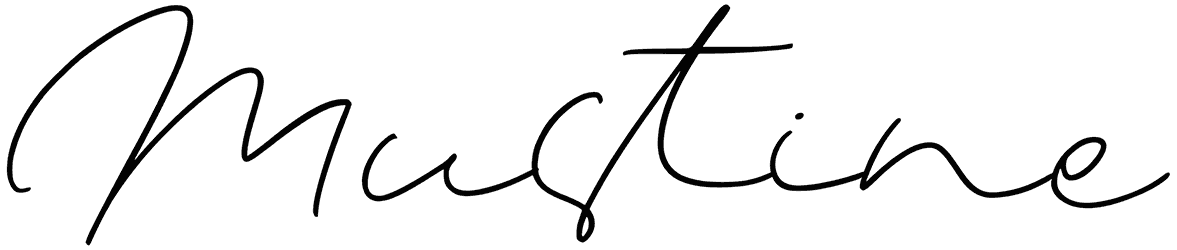
Mustine Font
Let’s check out Mustine, a monoline handwritten font that comes with a striking signature style. It emits a natural, fashionable touch and gives your design a youthful appearance. It looks made with simple ingredients, but when you put the letters together, it might be a bit illegible. This feminine font will be ideal for album covers, photo overlays, logotypes, branding, and advertising aims